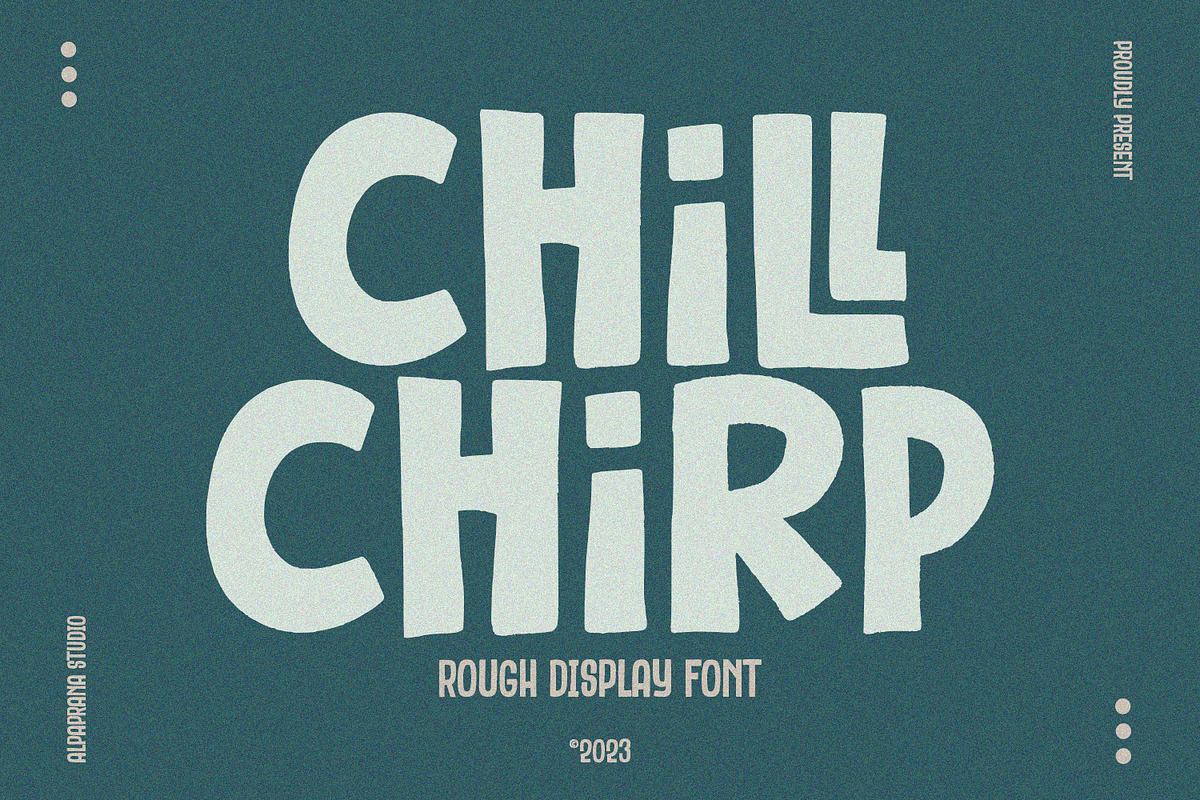
Please note that you must purchase this font for commercial use. You can download Chill Chirp – Display Font for free, strictly for personal testing purposes only. Chill Chirp is a playful and fun display font that combines boldness with a light, cheerful vibe. Featuring rounded shapes and friendly letterforms, Chill Chirp Font Free Download is perfect for creating dynamic branding, posters, logos, social media graphics, and product packaging that need to convey a sense of fun and creativity.
This font is ideal for projects aimed at a younger audience or designs that require a happy, approachable look. It includes uppercase and lowercase letters, numerals, punctuation, and multilingual support for global design flexibility.
Whether you're working on a quirky brand, a cheerful event, or creating engaging content, Chill Chirp brings energy and personality to your typography.